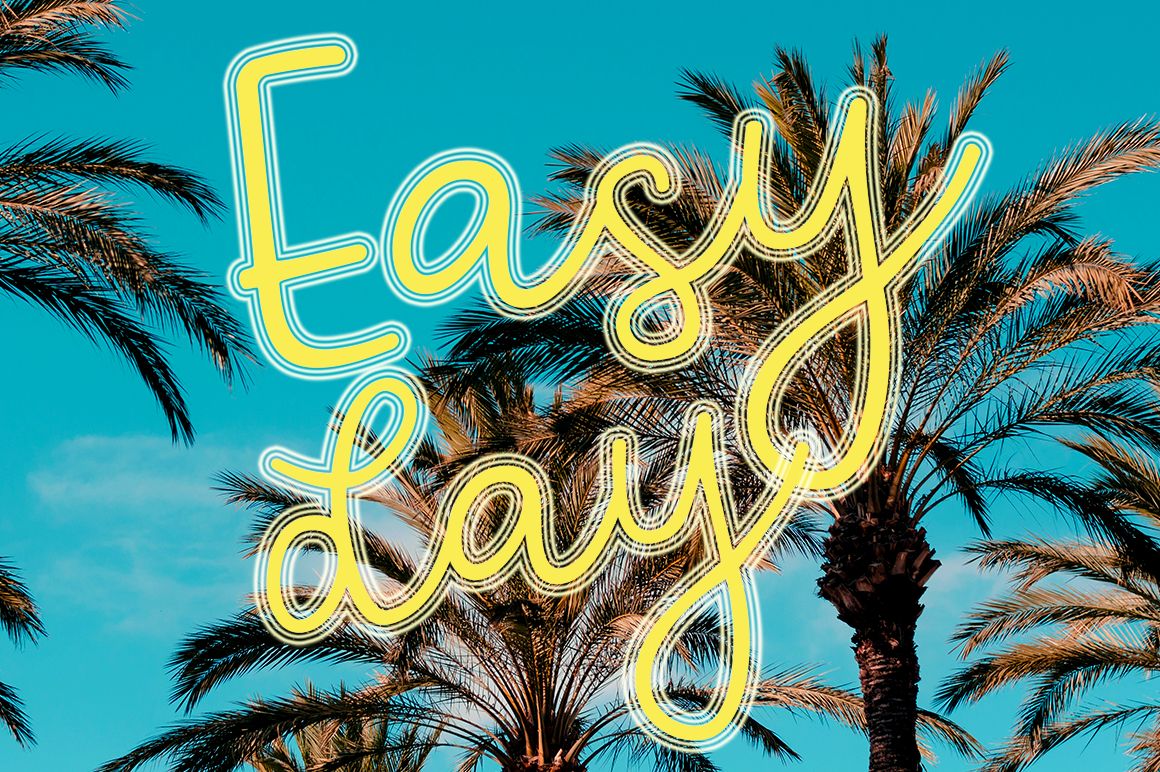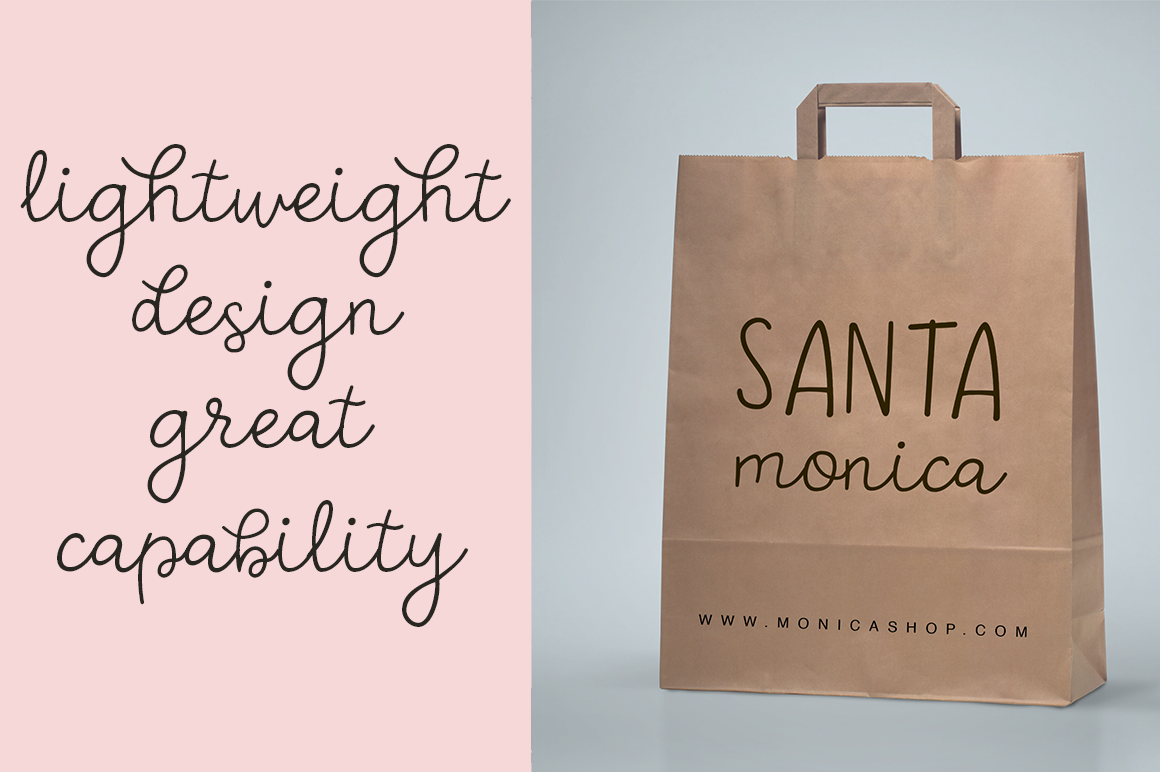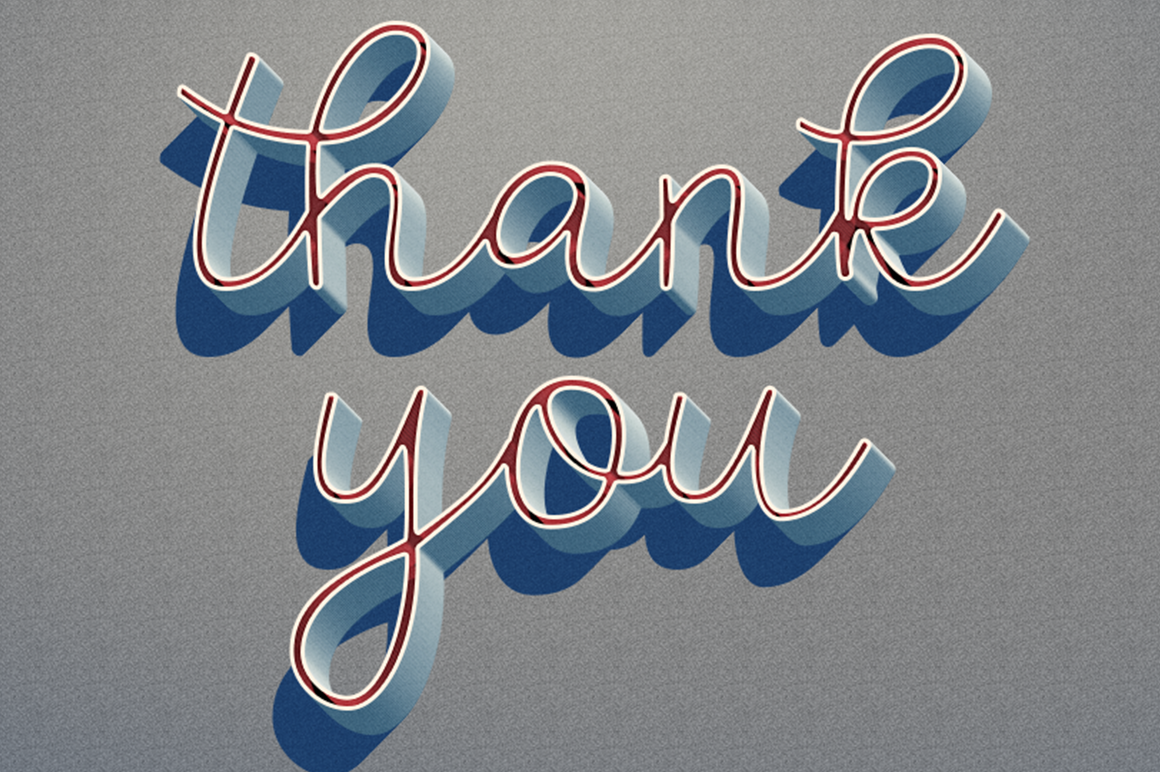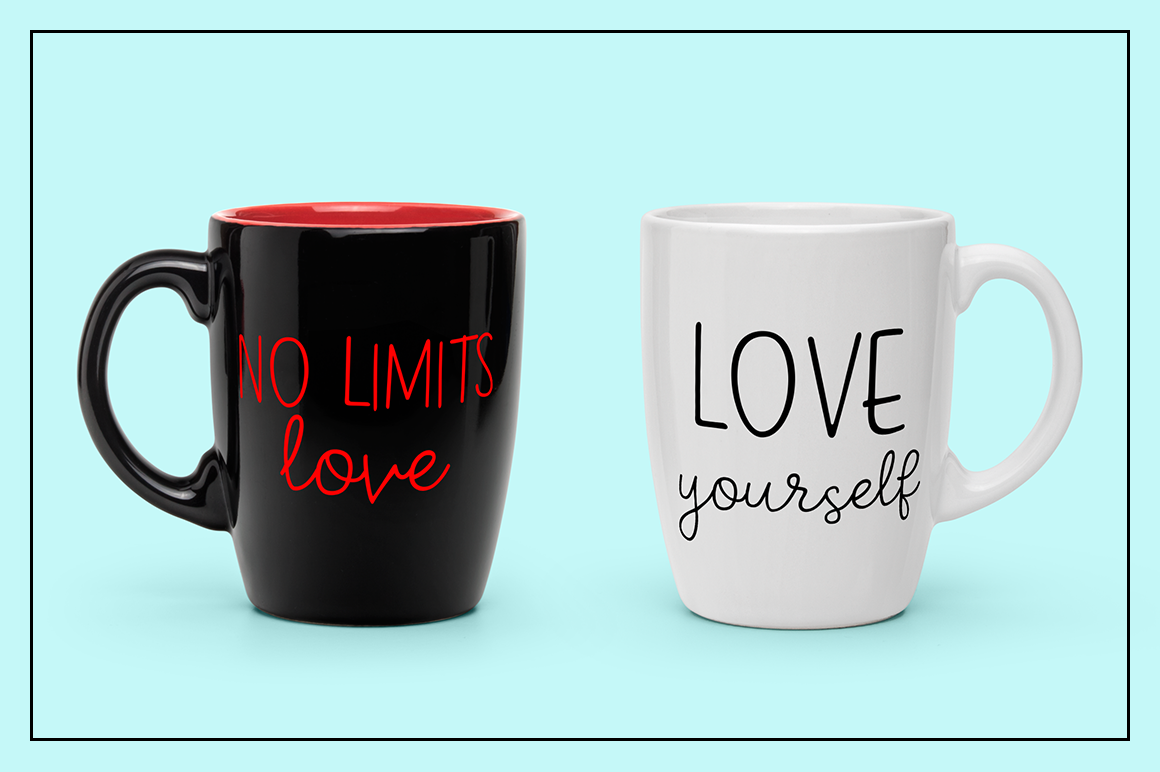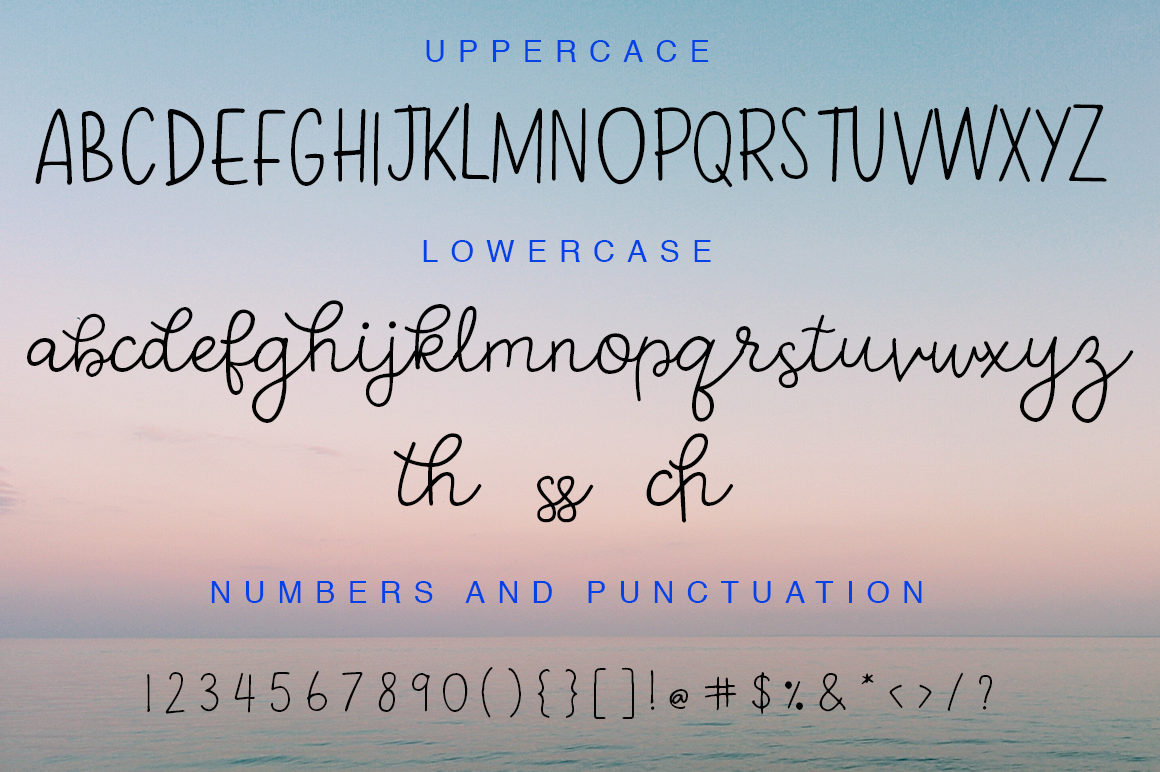
Discover the Elegance of Andrea Font: A Monoline Script for Exceptional Projects
Andrea Font is a stunning example of a beautifully constructed thick, monoline script that has captured the attention of designers and crafters alike. This exceptional font is specifically designed to function as a display for your most precious projects, adding a touch of elegance and sophistication to any design.
The Characteristics of Andrea Font
Andrea Font boasts a unique monoline script style, characterized by its thick, fluid lines that exude a sense of luxury and refinement. The font’s design is carefully crafted to create a sense of continuity, with flowing connections between letters that give it a sense of movement and fluidity.
One of the standout features of Andrea Font is its exceptional legibility, even at larger sizes. This makes it an ideal choice for display purposes, such as headlines, titles, and signage. The font’s thick lines also give it a bold, eye-catching quality that is sure to grab attention.
Uses for Andrea Font
Andrea Font is a versatile font that can be used in a variety of design applications. Here are a few examples of how you can use this exceptional font:
- Logos and Branding: Andrea Font’s elegant, refined design makes it an excellent choice for logos and branding materials. Its monoline script style gives it a sophisticated, high-end feel that is perfect for luxury brands.
- Signage and Displays: The font’s exceptional legibility and bold lines make it an ideal choice for signage and display purposes. Use it to create eye-catching headlines, titles, and announcements that are sure to grab attention.
- Packaging and Product Design: Andrea Font’s luxurious feel makes it a great choice for packaging and product design. Use it to add a touch of elegance and sophistication to your product labels, packaging materials, and marketing collateral.
- Digital Media: Andrea Font is also well-suited for digital media, including social media graphics, website headers, and email marketing campaigns. Its bold, eye-catching design is sure to stand out in a crowded digital landscape.
Tips for Using Andrea Font Effectively
To get the most out of Andrea Font, here are a few tips to keep in mind:
- Use it sparingly: Andrea Font is a bold, attention-grabbing font that should be used sparingly to maximum effect. Use it for headlines, titles, and other display purposes, but avoid overusing it in your design.
- Pair it with contrasting fonts: To create visual interest and add depth to your design, pair Andrea Font with contrasting fonts that provide a clear visual hierarchy.
- Experiment with colors and textures: Andrea Font’s bold lines and elegant design make it a great choice for experimenting with different colors and textures. Try pairing it with bold colors, metallic finishes, or textured backgrounds to add depth and interest to your design.
Andrea Font is an exceptional monoline script font that is sure to elevate your design projects to the next level. Its elegant, refined design and bold, eye-catching lines make it a versatile font that can be used in a variety of applications, from logos and branding to signage and digital media. By using Andrea Font effectively and following the tips outlined above, you can add a touch of luxury and sophistication to your designs and create exceptional projects that stand out from the crowd.